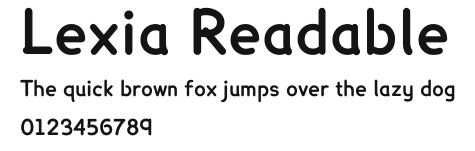
Lexia Readable Preview
• Font Name: Lexia Readable
• Designer: Keith Bates
• Manufacturer: © 2013 K-Type
About Lexia Readable.ttf
Lexia Readable.ttf is a modern, elegant sans-serif font designed for ultimate readability and visual harmony. Perfect for branding, headlines, web design, and print materials.